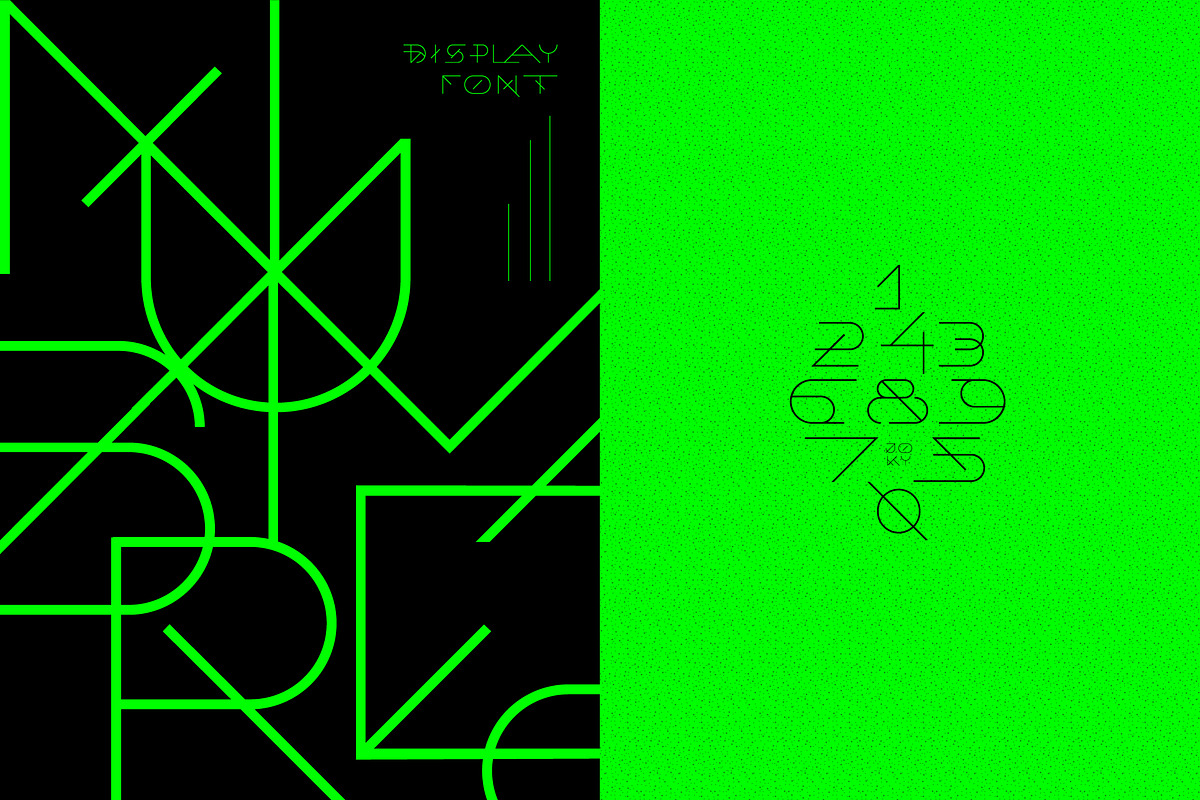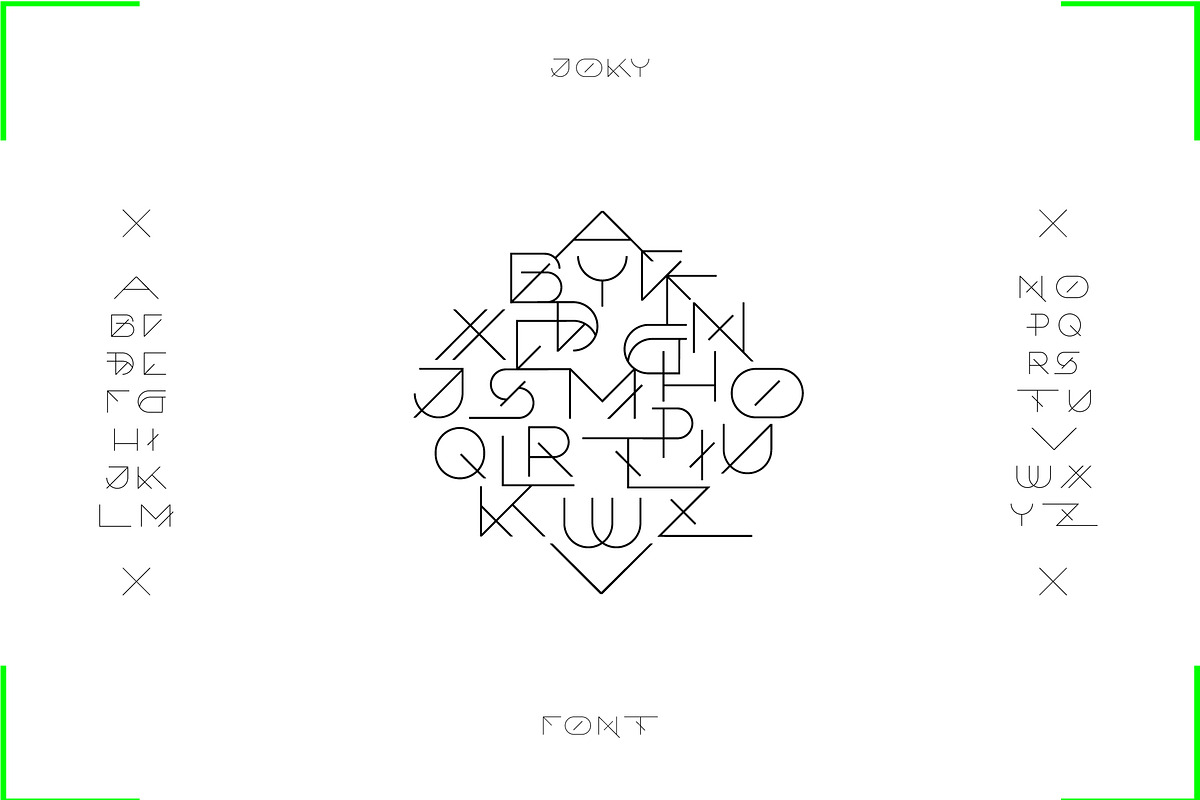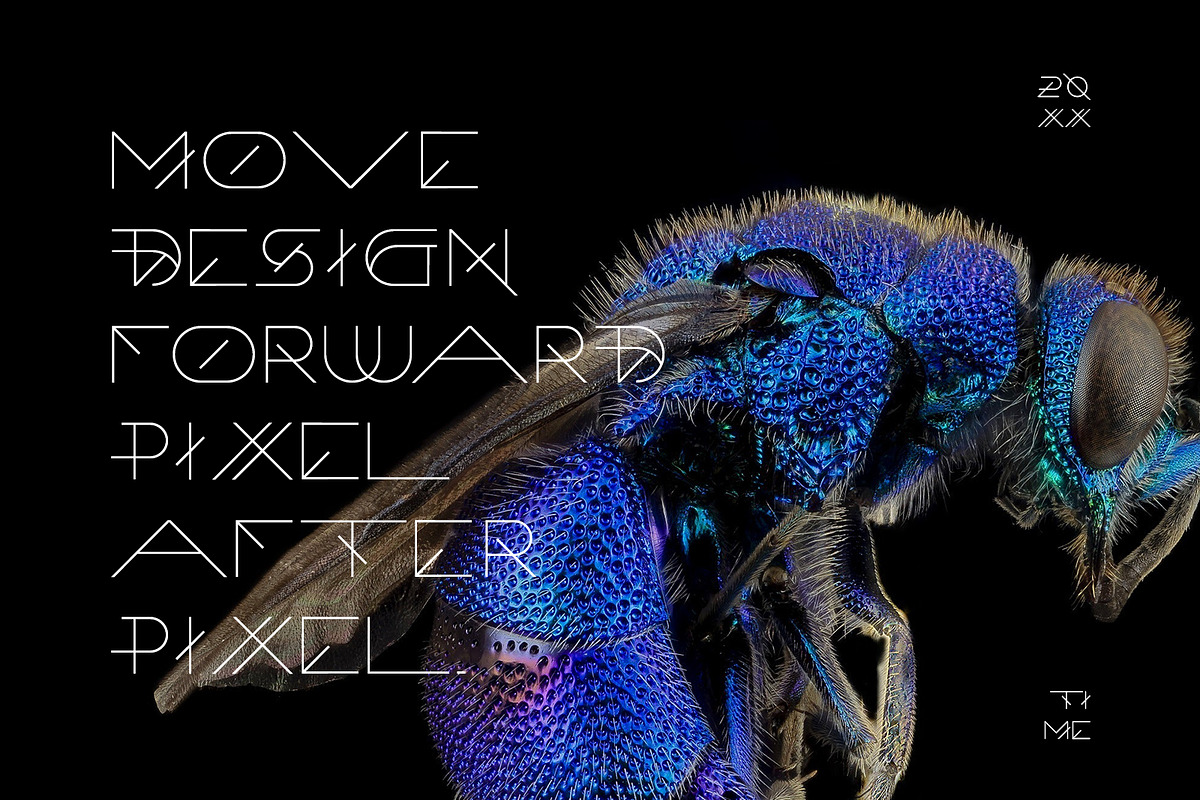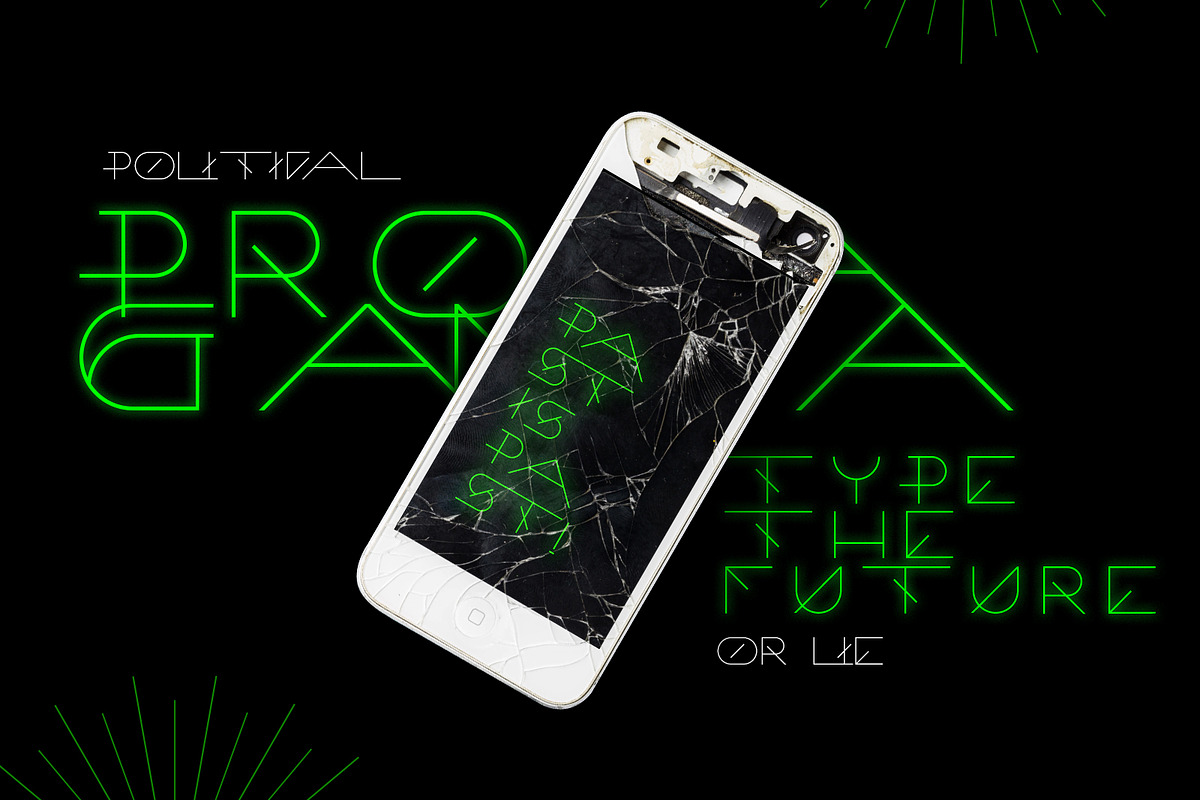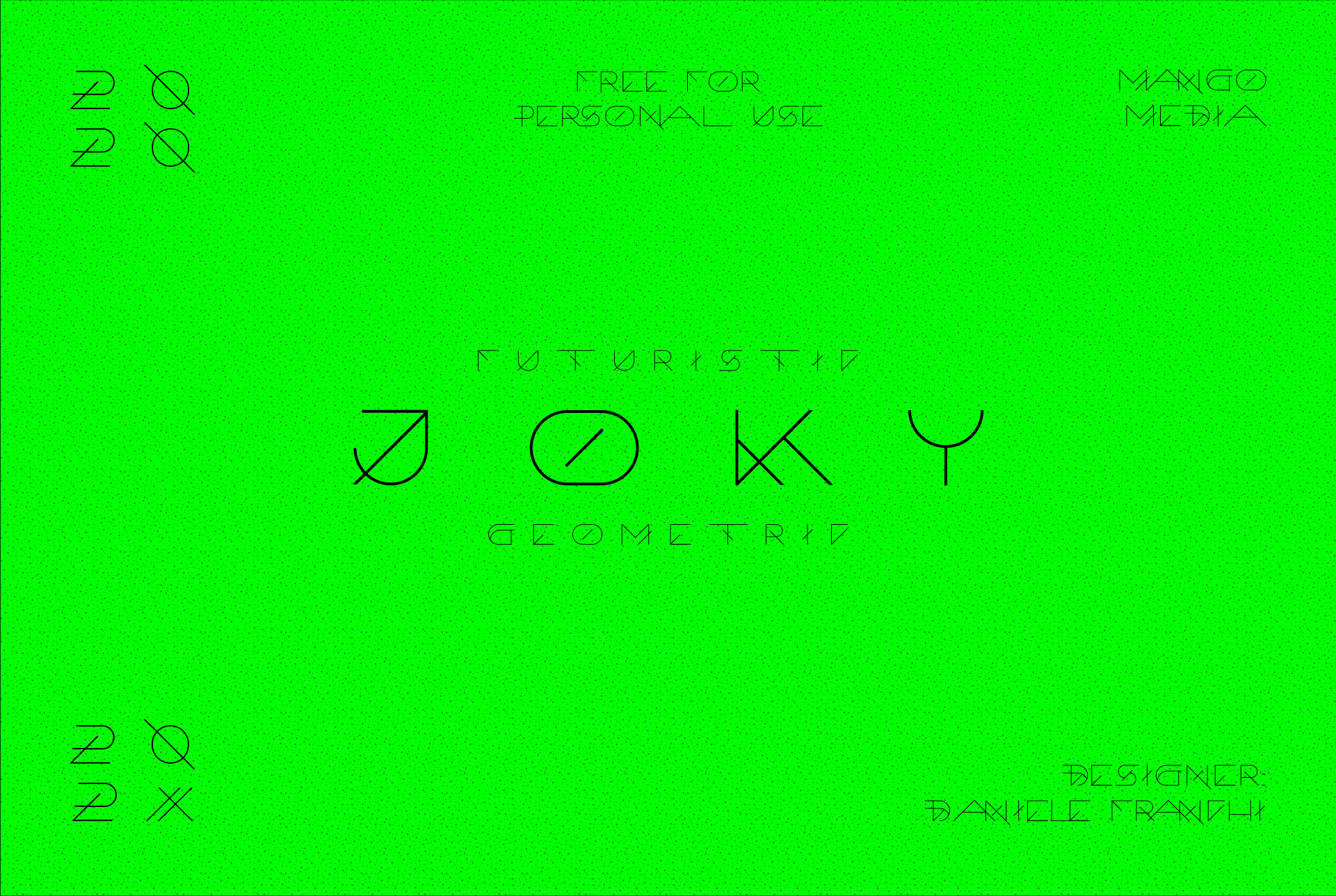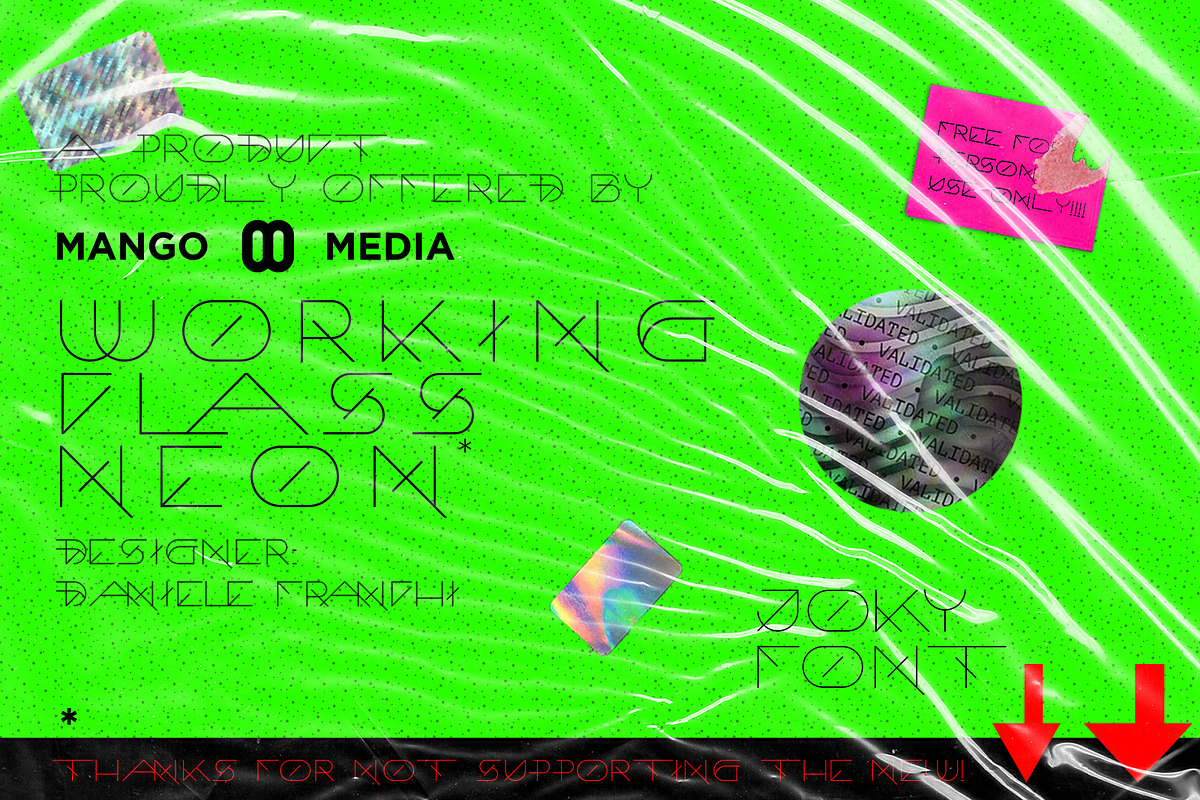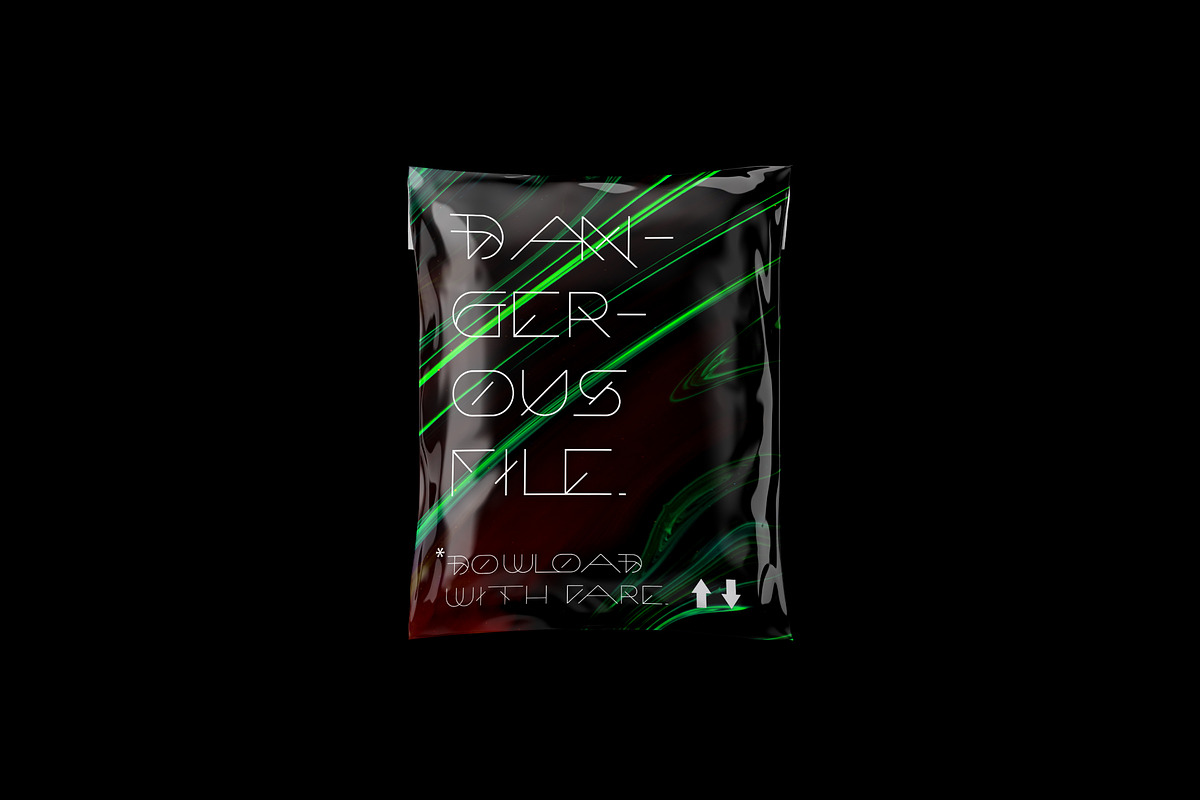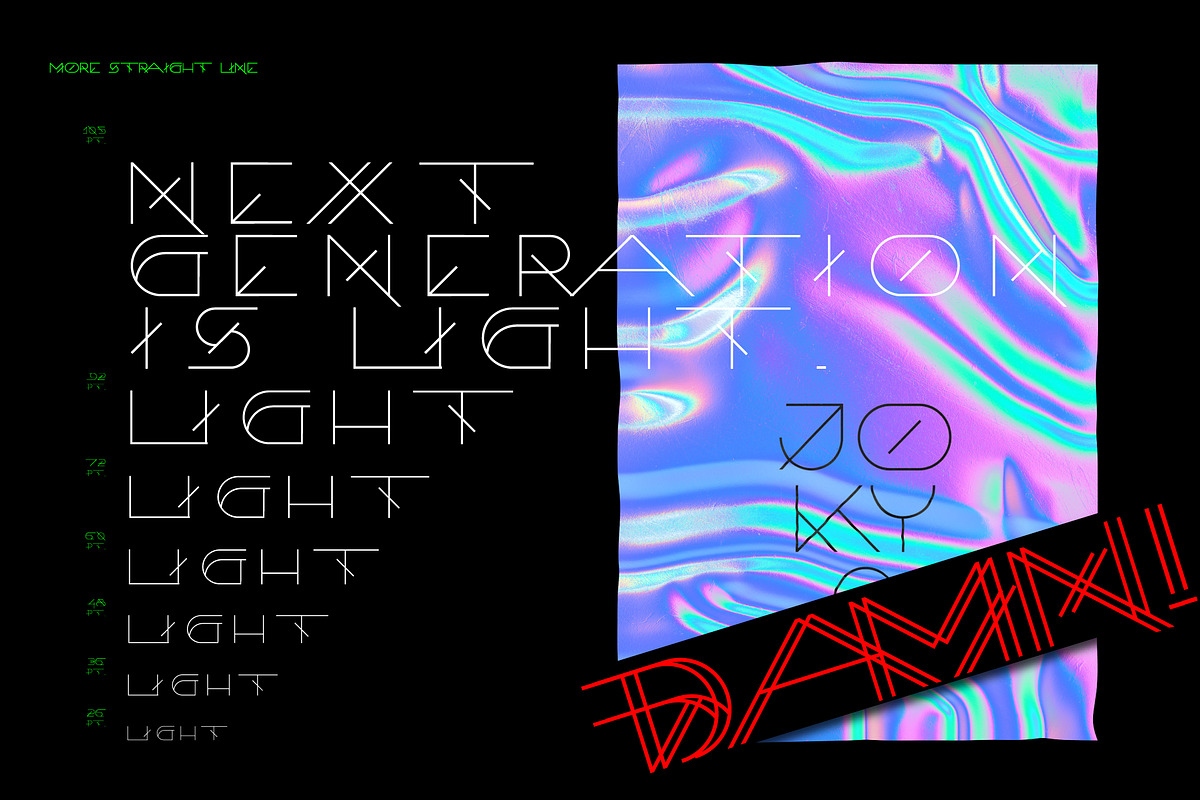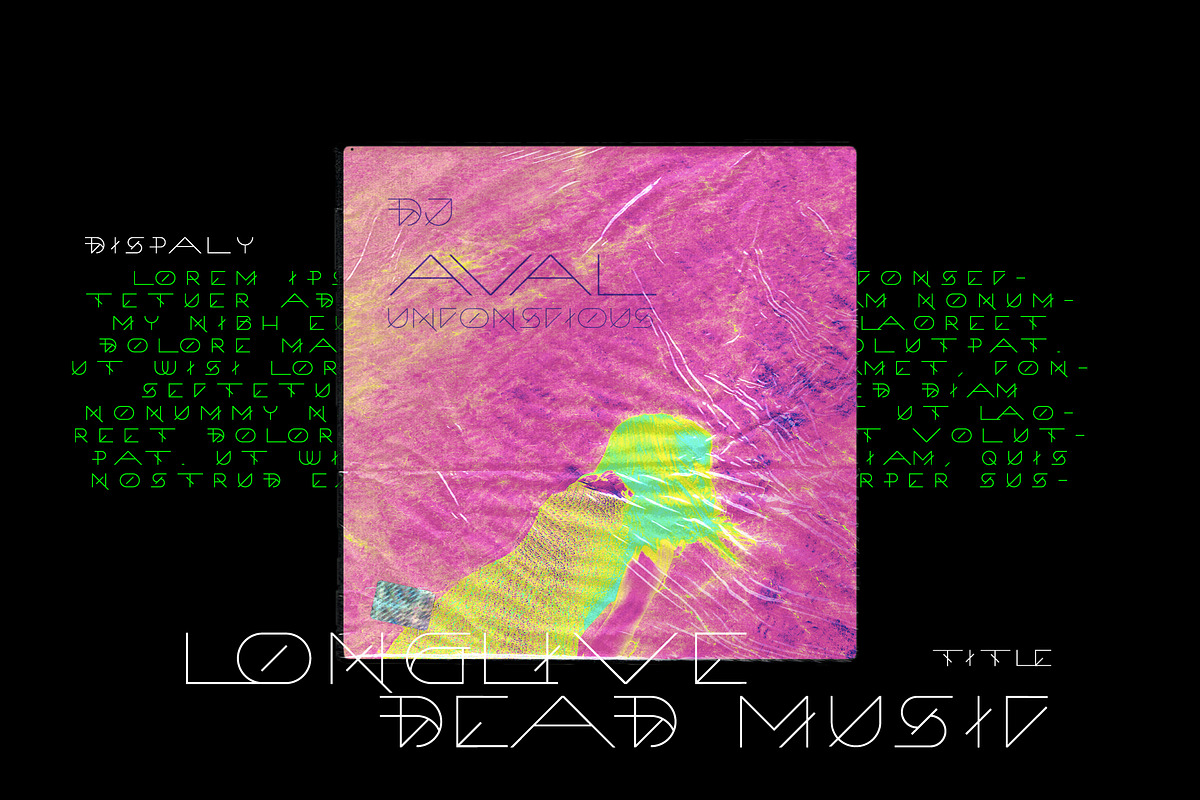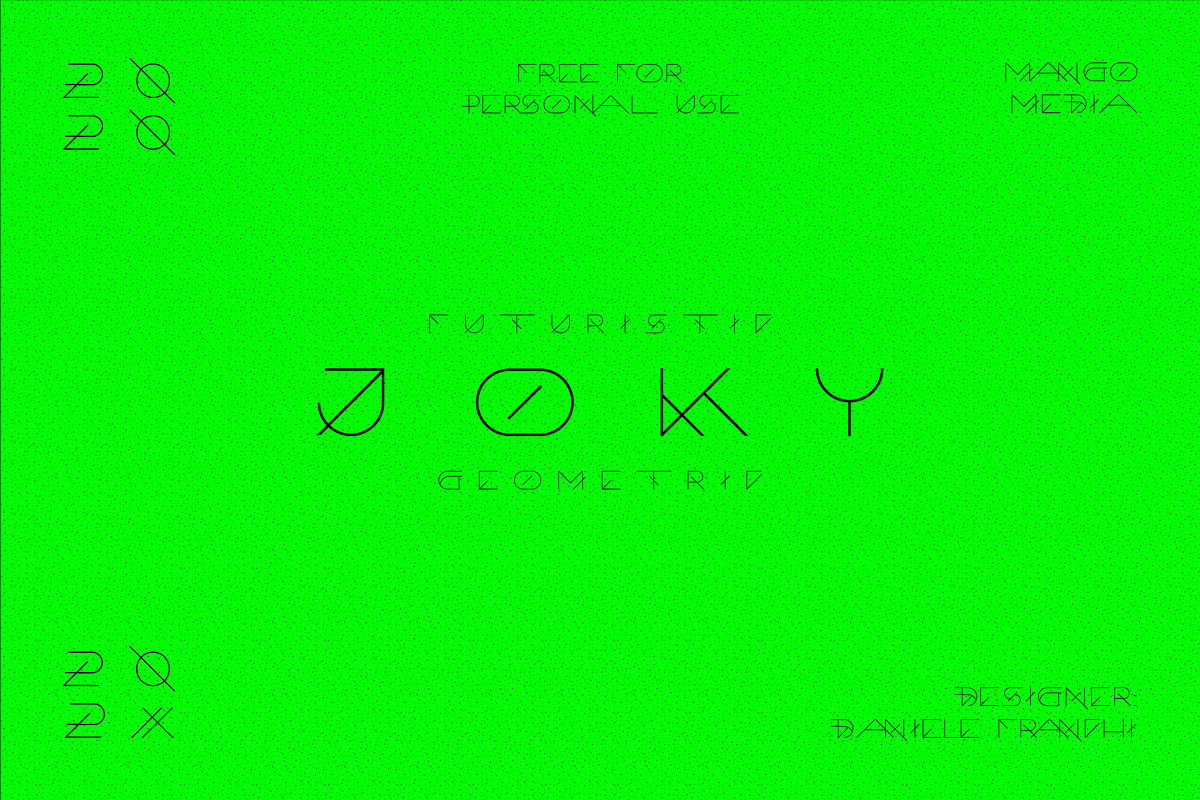
Joky - Light futuristic font
Joky light font
Joky is a display geometric futuristic font. Created with easy geometric lines by the designer Daniele Franchi. The letters, deigned to have different width, combined, create unique forms. Great for any design works related to future, music or space. Screaming uppercase only.
To have more creative possibility for your composition I designed numbers as well.
This font perfect fit for unique project about: future, AI, robotic, space, geometry, hybrid, modern design, modern architecture, technology, cyborg, tecno , house and trap music, tech.
*is easy to create more symbols if you need, thanks to the geometric nature of the font
Most of the character have the same width so you will not find problem to create a geometric and symmetric composition.